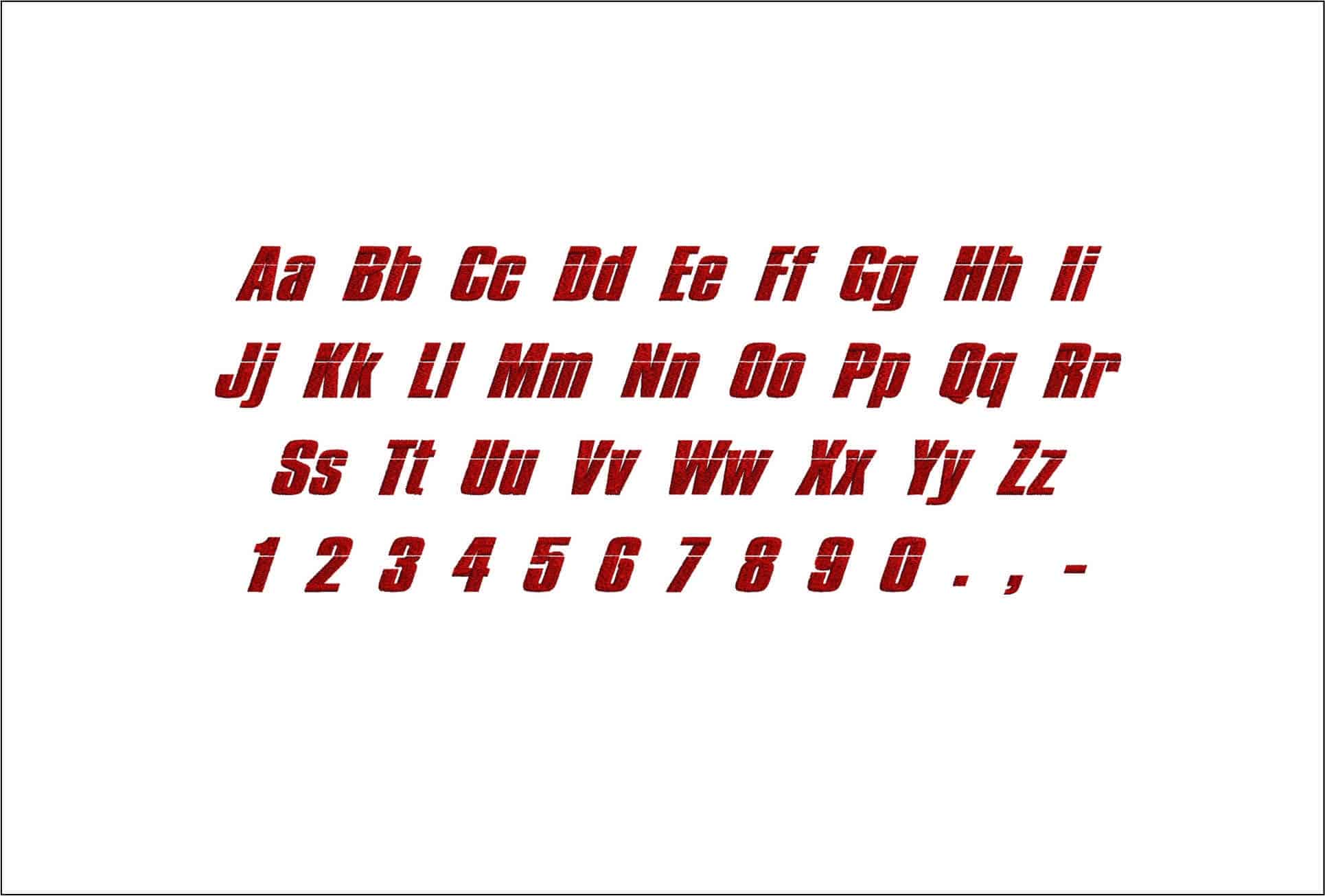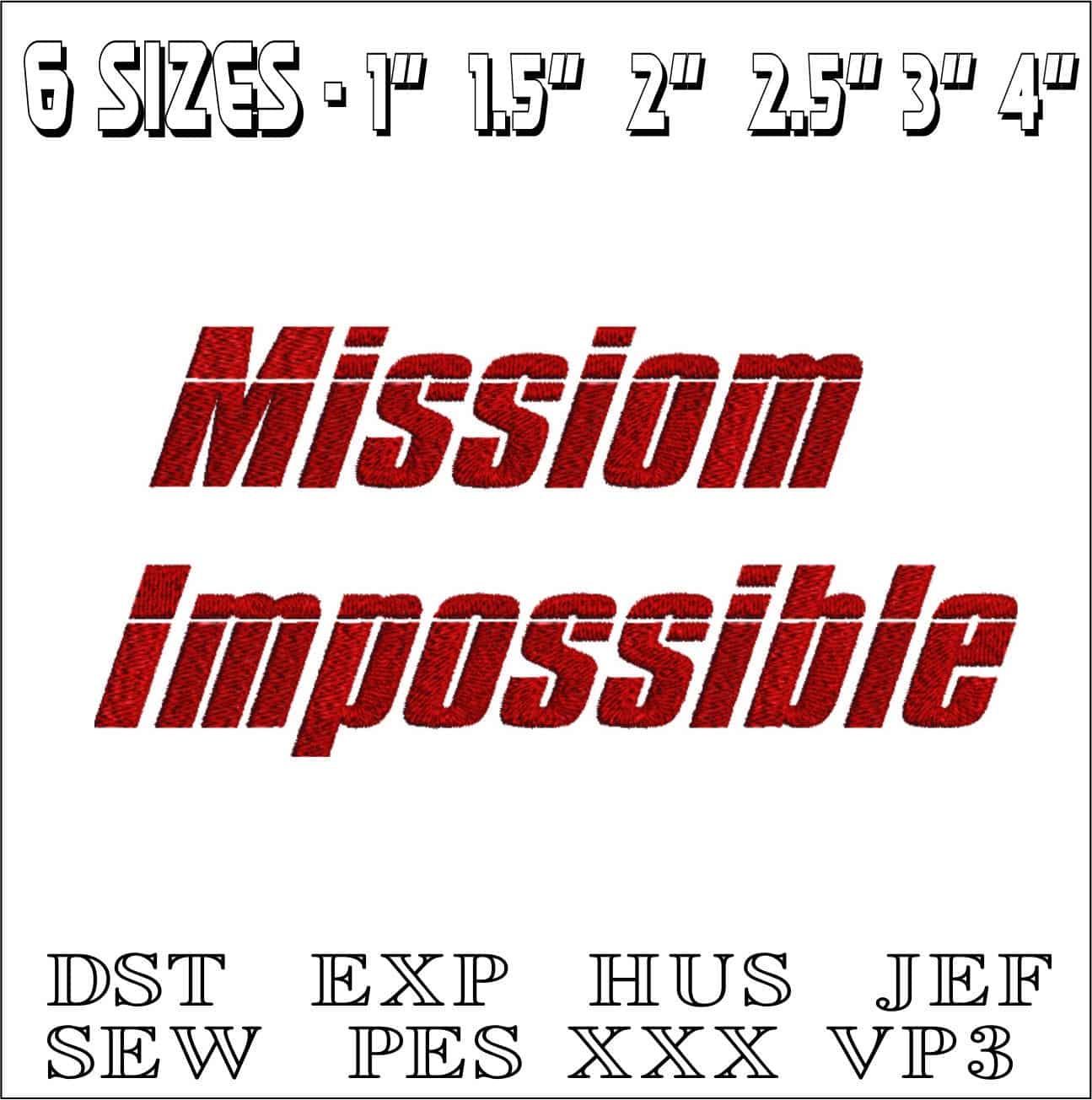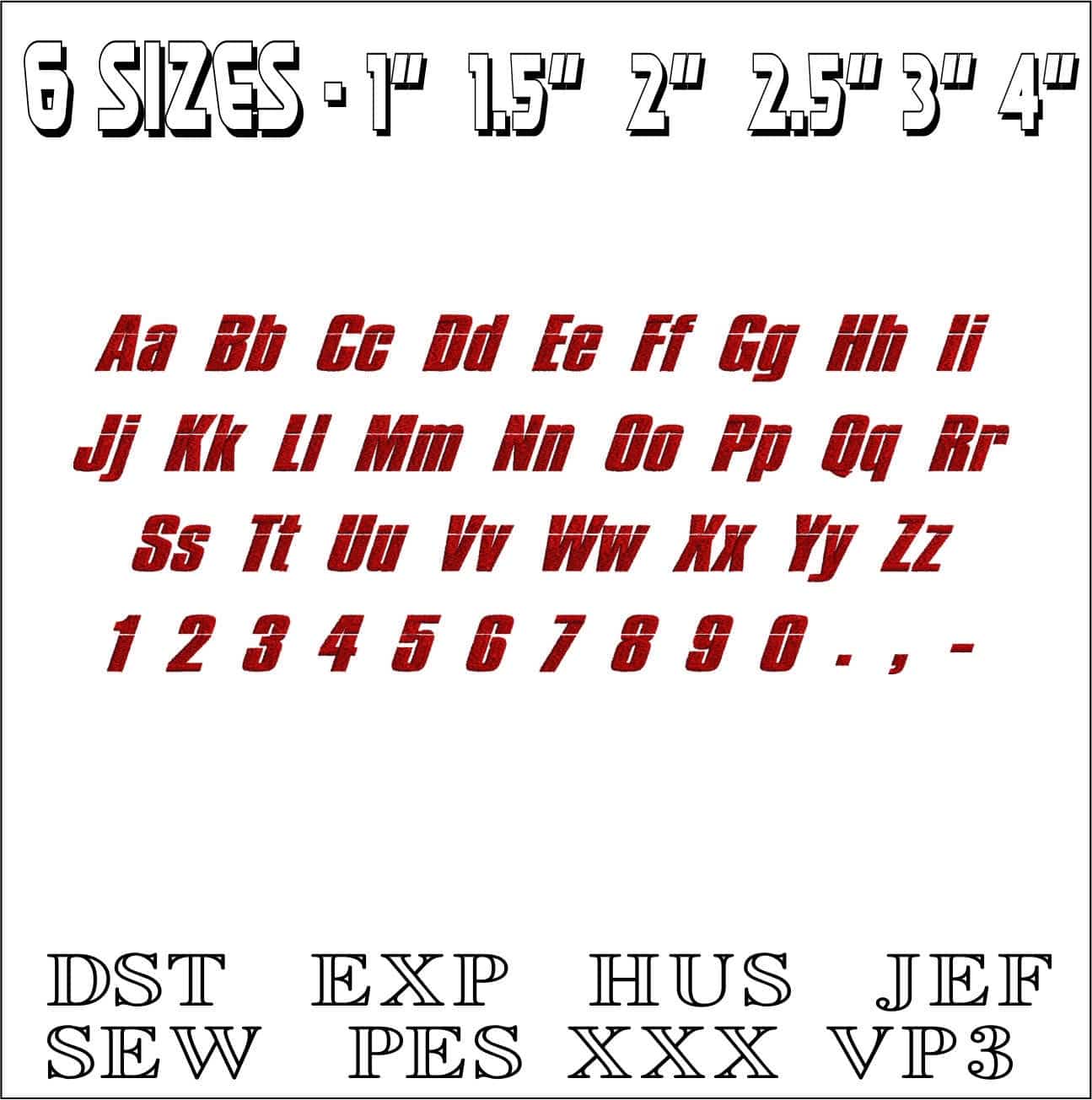
A sharp, slanted alphabet with a cut-through stripe detail that gives names, teamwear and bags a fast, cinematic edge.
Bring sleek suspense to your stitching with this bold italic block alphabet, styled with the distinctive horizontal cut-through that gives each letter a fast, high-stakes feel. The sampler shows upper and lower case letters, numbers and punctuation in solid red, making it a strong choice for anyone personalising gear with a clean modern look rather than a fussy script. It suits makers who want names, initials or short phrases to read clearly while still feeling graphic and characterful.
This font works especially well on jacket backs, sweatshirt fronts, kit bags, laptop sleeves and structured cotton totes where the slanted lettering can really show its shape. The thick strokes give it presence on denim, twill and sweatshirt fleece, and the segmented stripe keeps larger words from looking flat or heavy. Use it when you want custom text that feels brisk, confident and a little bit covert.